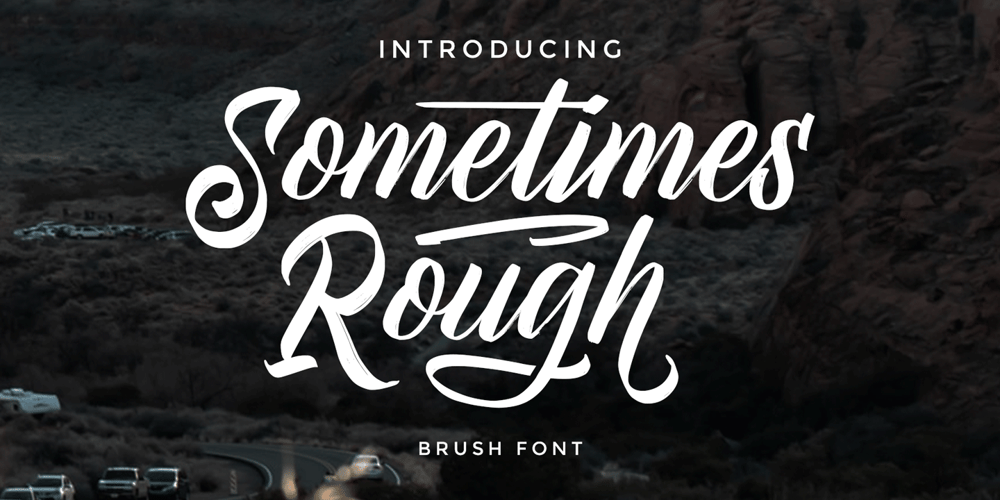
Sometimes Rough
Sometimes Rough font
Sometimes Rough Font Family was designed by Ahmad Ramzi Fahruddin and published by Arterfak Project. Sometimes Rough contains 1 styles and family package options. Sometimes Rough, a new brush font with a real hand-lettered brush in solid ink. The letterforms have many personalities; sometimes strong, feminine, sometimes elegant, or manly. The modern-vintage design, flexible for a lot of needs.Create a natural typographic with this font, including 150+ alternate characters that give you more variations. Ideal for logos, merchandise, craft, poster, flyer, books, menu, packaging, advertising and more.Features: Uppercase Lowercase Numbers Symbols Accented characters Stylistic alternates Stylistic set 01-07 Contextual Alternates